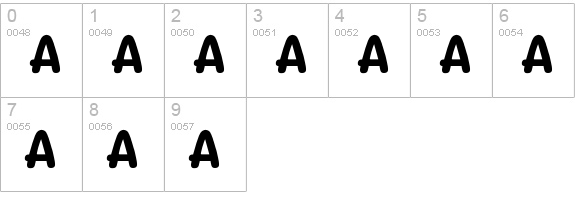
Suske & Wiske Font Details
The Suske & Wiske font is a whimsical and playful typeface inspired by the classic Belgian comic series of the same name. With its quirky and charming design, this font is perfect for adding a touch of fun and nostalgia to your projects. Whether you're creating a poster, invitation, or logo, the Suske & Wiske font will bring a unique and eye-catching element to your design. Best of all, this font is available for free download at FontsMarket.com. So go ahead and enhance your creations with the delightful Suske & Wiske font today!